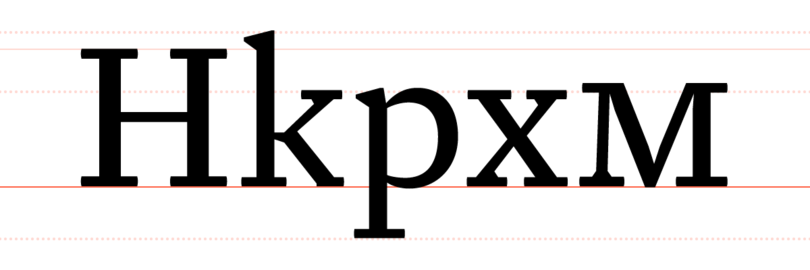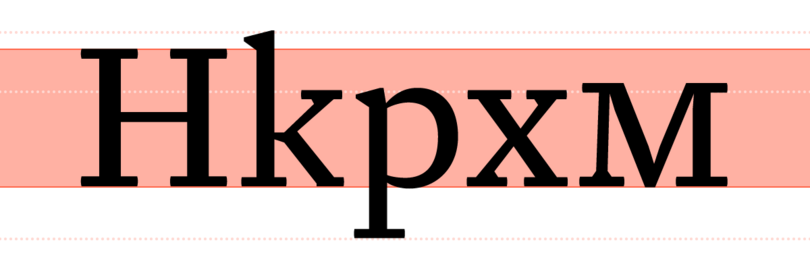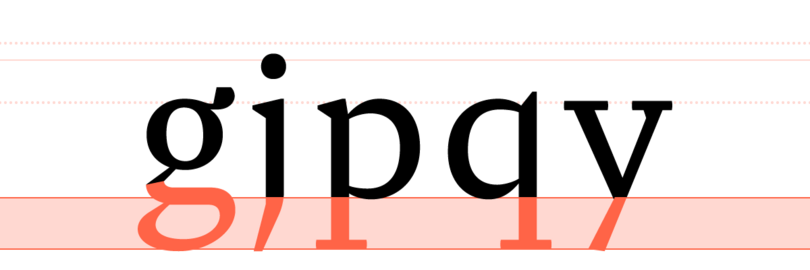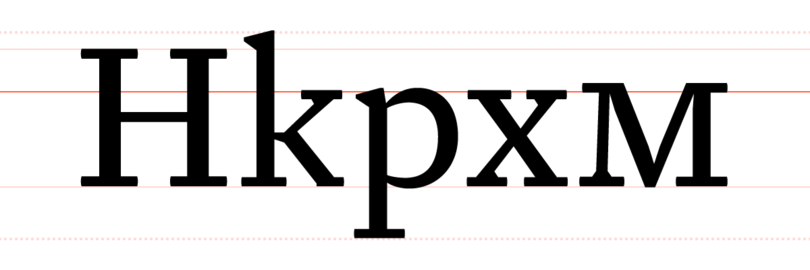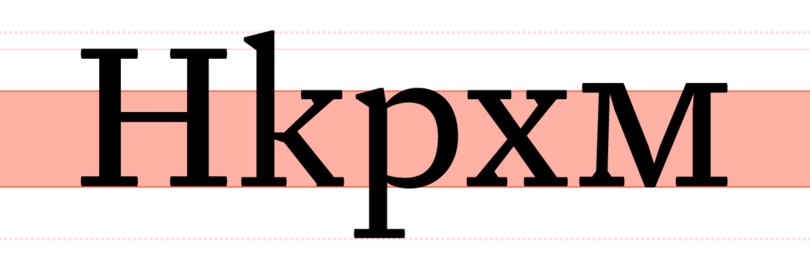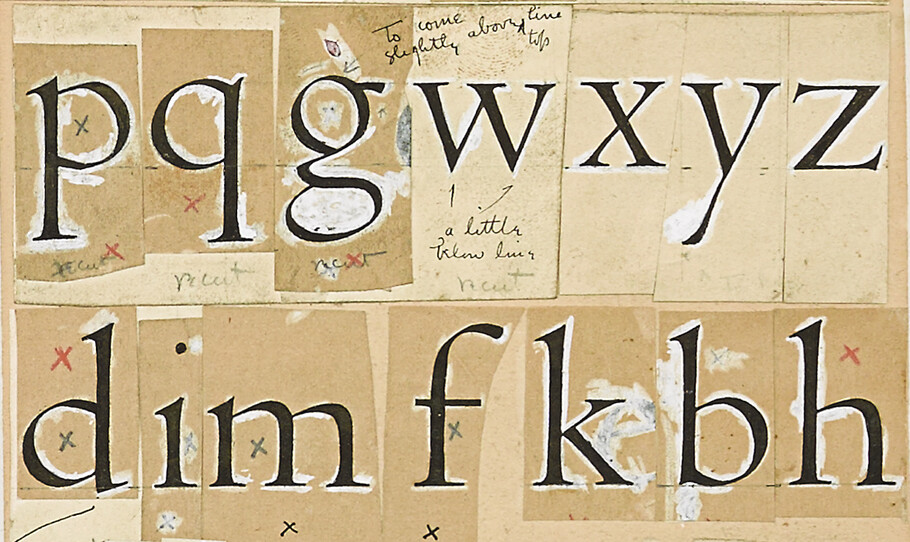
Typography terms and definitions.
“ From alternates to X-height, this list of typography terms and definitions covers just about everything you’d want to know about fonts and typography. ”
From alternates to X-height, this list of typography terms and definitions covers just about everything you’d want to know about fonts and typography.
A
Accents.
See Diacritics
Alternates.
Different shapes (or glyphs for the same character in a typeface, for example small caps, swash characters, contextual alternates, case-sensitive forms, etc.
Anti-aliasing.
Blurring the edges of a font on screen to soften the look of bitmapped type. Anti-aliasing is usually desirable at large point sizes (16 points or above).
Antiqua.
The common German and Scandinavian names for serif faces, as opposed to “Grotesk” which means sans serif face. The Scandinavian name is “Antikva”.
Aperture.
The partially enclosed, somewhat rounded negative space in some characters such as ‘n’, ‘C’, ‘S’, the lower part of ‘e’, or the upper part of a double-storey ‘a’. Specifically the opening to the counter space.
Apex.
The point at the top of a letter where two strokes meet, for example in the capital ‘A’.
Arc.
Any curved contour of a letter.
Arm.
The horizontal stroke in a character that does not connect to a stem at one or both sides.
Ascender.
Any part in a lowercase letter that extends above the x-height, found for example in ‘b’, ‘d’, ‘f’, ‘h’, ‘k’, etc. Some types of ascenders have specific names.
Axis.
An imaginary line drawn from top to bottom of a glyph bisecting the upper and lower strokes is the axis. The slant of the axis (or lack thereof) often helps determine the type classification.
B
Backslant.
Characters that lean to the left, as opposed to italic or slanted characters that lean to the right.
Ball Terminal.
A terminal that resolves into circular shape.
Bar.
The horizontal stroke in characters such as A, H, R, e, and f.
Baseline.
The imaginary line upon which the letters in a font appear to rest.
Letters appear to sit on the baseline, shown in red, with the exception of letters with a descender, such as the lower-case “p.” Photo credit: Fontshop.com.
Beak.
A triangular, serif-like protrusion at the end of a stroke in certain serif type designs.
Body.
Originally the physical block on which each metal character sat, in digital type it is the imaginary area that encompasses each character in a font. The height of the body equals the point size; its width is the letterform plus its sidebearings.
Bowl.
The curved part of the character that encloses the circular or curved parts (counter) of some letters such as ‘d’, ‘b’, ‘o’, ‘D’, and ‘B’.
Bracket.
The bracket is a curved or wedge-like connection between the stem and serif of some fonts. Not all serifs are bracketed.
C
Cap height.
The height from the baseline to the top of the uppercase letters (not including diacritics).
Cap height is the height from the baseline to the top of the uppercase letters. Photo credit: Fontshop.com.
Case sensitive.
The position of a number of punctuation marks like hyphens, brackets, slashes etc. is centered on the x-height of the lowercase letters. Fonts with case-sensitive punctuation also have slightly raised alternates of these characters that are centered on the cap height (the height of the capital).
Character.
Any letter, numeral, punctuation mark, and other sign included in a font. Some characters can be represented by more than one glyph.
Contextual.
Feature-rich OpenType fonts can detect certain characters or character combinations before and/or after specific characters and substitute them with alternate glyphs or ligatures according to the context.
Counter.
The enclosed or partially enclosed circular or curved negative space (white space) of some letters such as d, o, and s is the counter.
Crossbar.
The (usually) horizontal stroke across the middle of the uppercase ‘A’ and ‘H’.
Cross stroke.
The (usually) horizontal stroke that intersects the stem of the lowercase ‘f’ and ‘t’.
Crotch.
The inside of a narrow angle where two strokes in a character meet, as in V, W, Y.
D
Delta hinting.
Instructions added to a TrueType font, allowing it to display nicely at any point size on screen. Delta hinting does not affect printing, nor is it available for PostScript fonts. Due to the extensive time required to create delta hints, most fonts do not include them. Delta hinting is a time-consuming and expensive process, but makes for quality TrueType fonts.
Descender.
Any part in a lowercase letter that extends below the baseline, found for example in g, j, p, q, y, etc. In italics, f often has a descender. The old-style numerals 3, 4, 5, 7, and 9 also have descenders. Some types of descenders have specific names.
X-height.
The height of the lowercase letters, disregarding ascenders or descenders, typically exemplified by the letter x. The relationship of the x-height to the body defines the perceived type size. A typeface with a large x-height looks much bigger than a typeface with a small x-height at the same size.
The relationship of the x-height to the body defines the perceived type size. Photo credit: Fontshop.com.